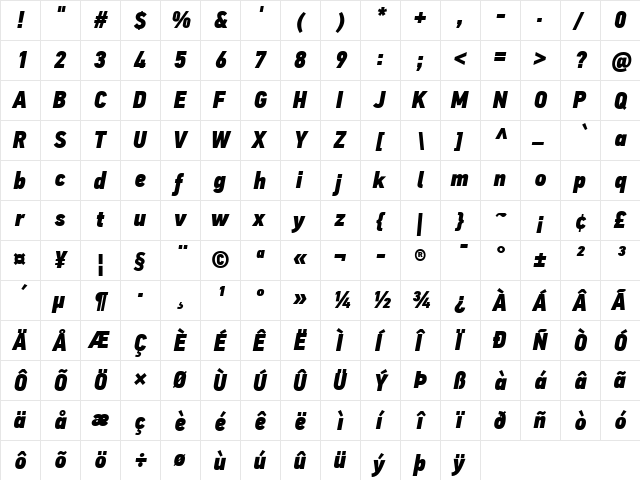
PF Din Text Cond Pro Extra Black Italic Font Preview
PF Din Text Cond Pro Extra Black Italic
PF Din Text Cond Pro Extra Black Italic Font Details
Design Context for PF Din Text Cond Pro Typeface
PF Din Text Cond Pro is a composed and adaptable typeface that performs quietly and consistently across a wide range of design contexts. The dynamic lean of this cut emphasises speed and emphasis in any layout. The condensed width makes it efficient for tight spaces without sacrificing legibility.
Pro Tip: Use PF Din Text Cond Pro for emphasis, pull quotes, and subheadings where its slanted energy can add rhythm to the layout.